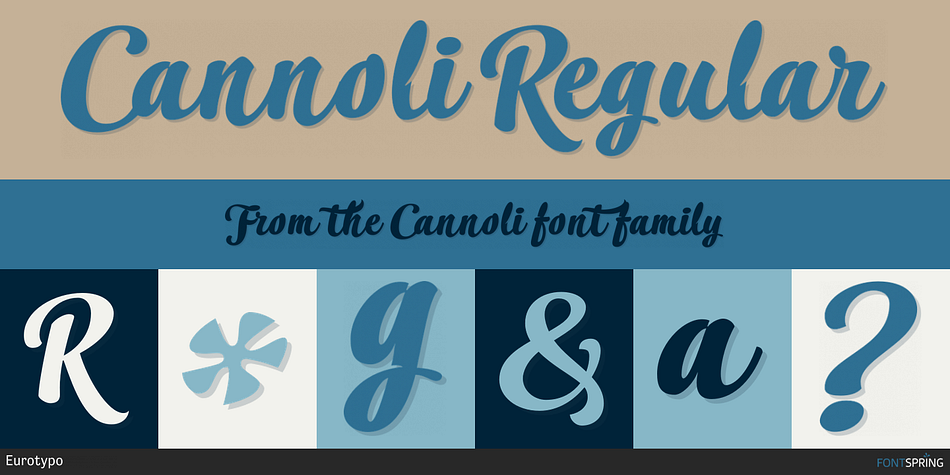
Cannoli Regular
Designed by Olcar Alcaide, Cannoli is a brush script and script font published by Eurotypo.
Cannoli is a brush lettering style font, designed specially for use in logotypes, advertising and packaging. It is interesting to note the use of free-flowing lettering to perform its own eye-catching.
This vintage typeface is a reminiscent of the posters of the 50s, painted with a brush in enamel advertising signs.
“Cannoli” was inspired by the delicacy of the Sicilian pastry, and the robust charm of its landscape.